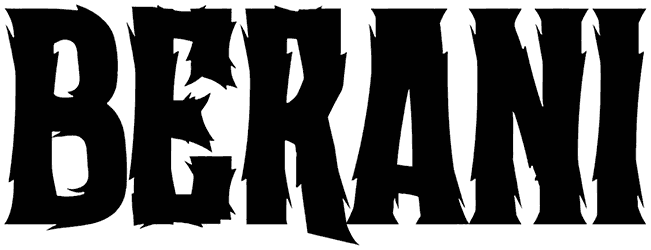
Berani Font
Adding Berani is enough to create a sense of fear in writing and become a night monster in the posters of horror movies and detective books. This horror font expands your imagination to such an extent that you can implement your mental ideas best, even without having some numbers and small letters in hand. If you want to find a perfect couple for this tiger font, the RB library is full of suggestions that can complement your creative design world.